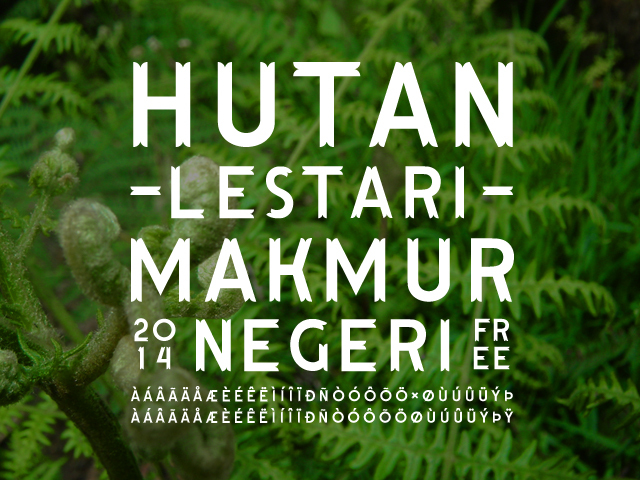
HutanLestari
Hutan Lestari is the second version of Hutan. Hutan Lestari means 'preserved forest'. The design is gently inspired by shape of young leaf.